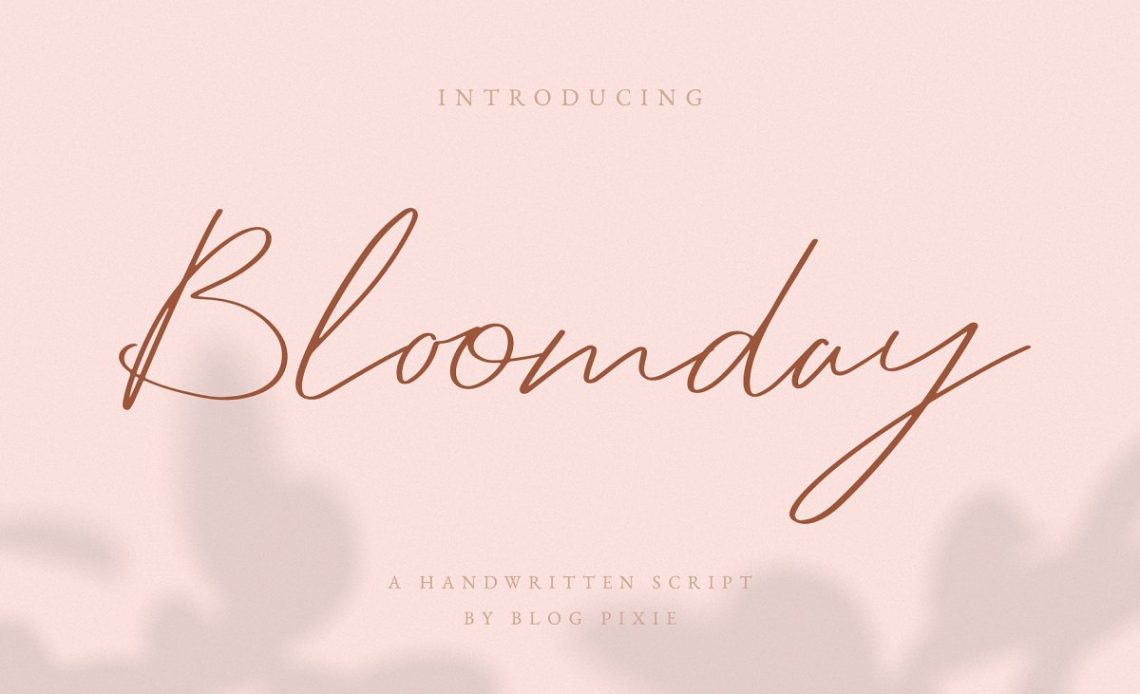
Looking for the perfect script font for your modern website? Look no further than Bloomday Script Font, created by Blog Pixie. This delicate and finely lined font is the perfect addition to any design project, whether it's quotes, invitations, stationery, print design, logos, magazine, eBooks, or anything in between.
Bloomday Script Font is the perfect choice for those looking for a modern and sophisticated handwriting style. Its calligraphy-style strokes are thin and refined, making it an excellent choice for any design project that requires an elegant touch. The font is available for personal and commercial use, so it's perfect for bloggers, designers, and entrepreneurs alike.
But Bloomday Script Font isn't just any ordinary font. It's one of the best fonts for modern websites. With its eye-catching design and easy-to-read script, Bloomday Script Font is the perfect choice for any website looking to make a statement. Whether you're looking to create a logo, add text to your website, or create social media graphics, Bloomday Script Font is the ideal choice.